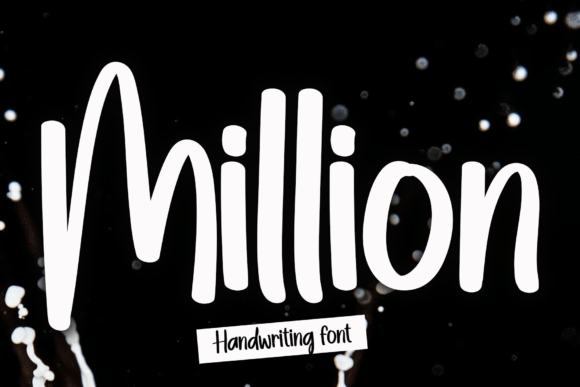
Prepare to be mesmerized by Million Font, the epitome of elegance and creativity. Dive into a world of enchanting cursive strokes that will transform your designs into captivating masterpieces. Experience the allure of a font family crafted with meticulous attention to detail, promising to elevate your projects to extraordinary heights.
Unleash the limitless possibilities of Million Font, the perfect companion for your artistic endeavors. Whether you're a seasoned designer or just starting your creative journey, this font will guide you toward exceptional outcomes. Its user-friendly nature makes it accessible to all, allowing you to effortlessly add a touch of magic to your digital creations.
Step into a realm where your imagination takes center stage. With Million Font, you'll discover a font that harmonizes seamlessly with your artistic vision. Let your words dance across the screen, enveloped in the graceful embrace of Million Font. Its enchanting flow will captivate your audience, leaving them spellbound by the beauty of your creations.
Indulge in the beauty of Million Font and embark on a creative odyssey that will redefine your design aesthetic. Its captivating charm will transform your projects into works of art, attracting attention and leaving a lasting impression. Say goodbye to mundane fonts and embrace the allure of Million Font, your gateway to design excellence.